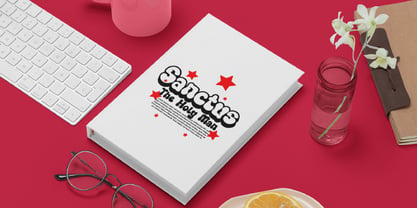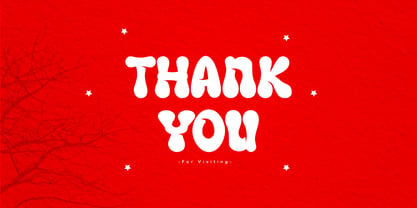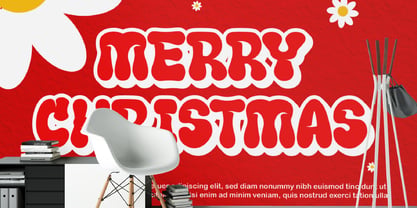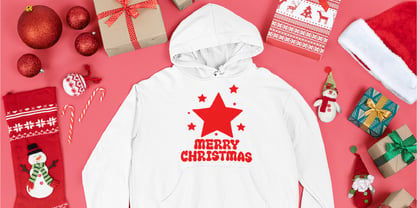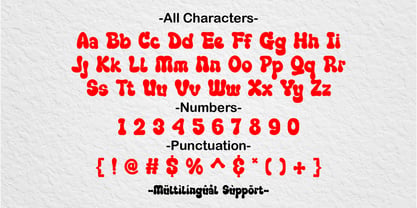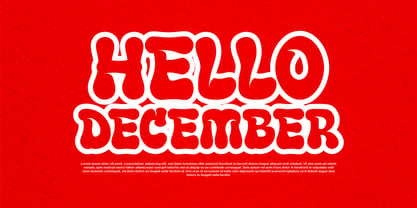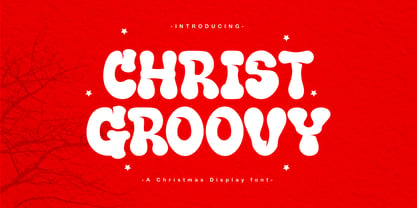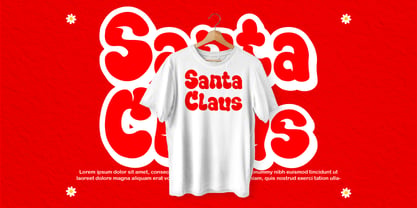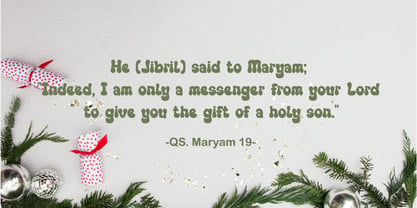
Christ Groovy
by Patlot Digital Studio
The Christ Groovy Font Family was designed by Gugun Gunawan and published by Patlot Digital Studio. Christ Groovy contains 1 styles. More about this family
Christ Groovy is a unique font inspired by the spirit and groovy style of Christmas parties. Its essence captures the rhythmic energy and stylish appeal of Christmas celebrations. Christ party invitations become very attractive, while thank you cards exude a playful charm when decorated with this font. Furthermore, this font brings sweet quotes to life, contributing to its charming quality. Vintage logos also take on a completely different dimension, blending a touch of the golden era with the vitality of the present. Overall, Christ Groovy weaves a harmonious retro feel into each of its designs.
Designers: Gugun Gunawan
Foundry: Patlot Digital Studio